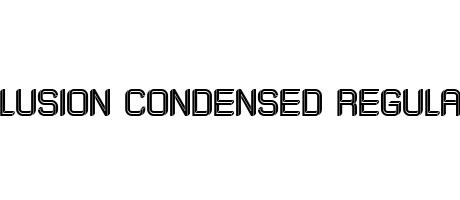
Illusion
Illusion Condensed Regular is a bold, geometric sans-serif typeface. Its condensed proportions and strong, parallel outlines create a powerful, almost futuristic feel. The sharp, clean lines and even weight give it a sense of technological precision and unwavering stability. It's a font that commands attention.